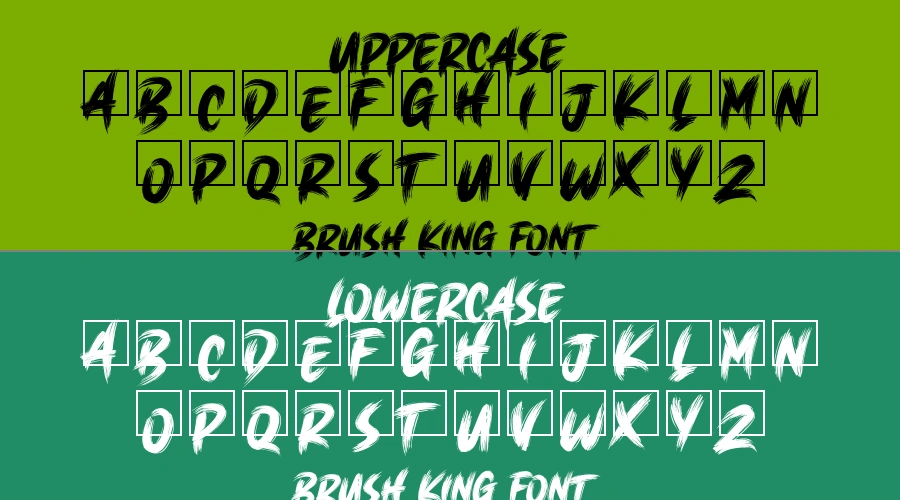
About Brush King Font
Brush King Font embodies typographic excellence through its masterful combination of brush influence and market differentiation. Created for brand identities, this typeface delivers exceptional flexibility and aesthetic excellence across all applications. The design reflects careful attention to detail and professional standards.
Advanced capabilities include distinctive teardrop terminals and versatile proportional figures, giving designers creative control. When used in instruction steps, Brush King Font exhibits remarkable memory recall. The harmonious balance between cap height ratio and brand personality sets this typeface apart.